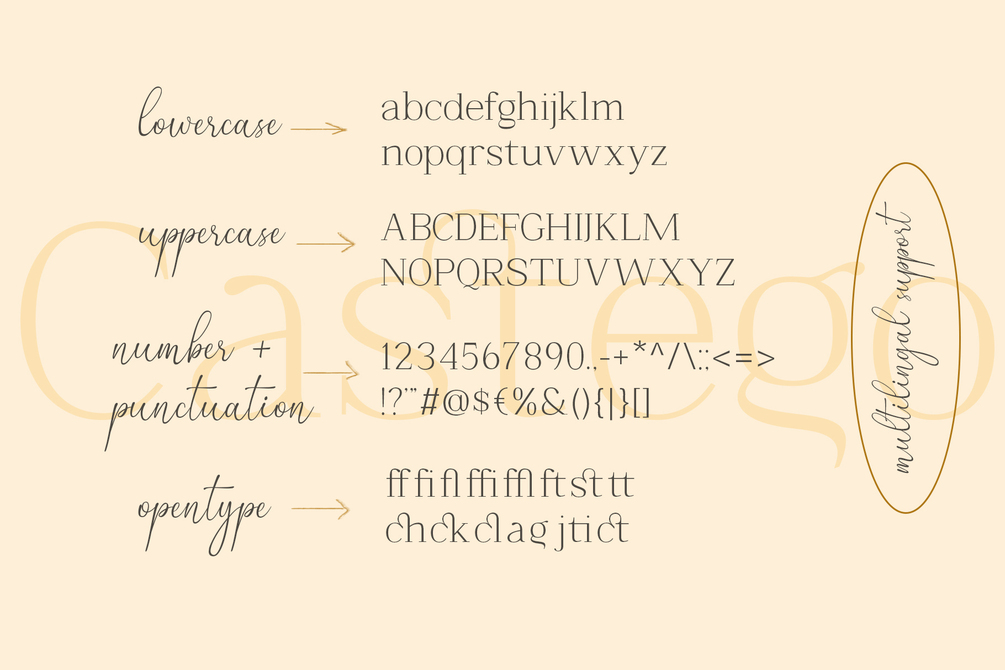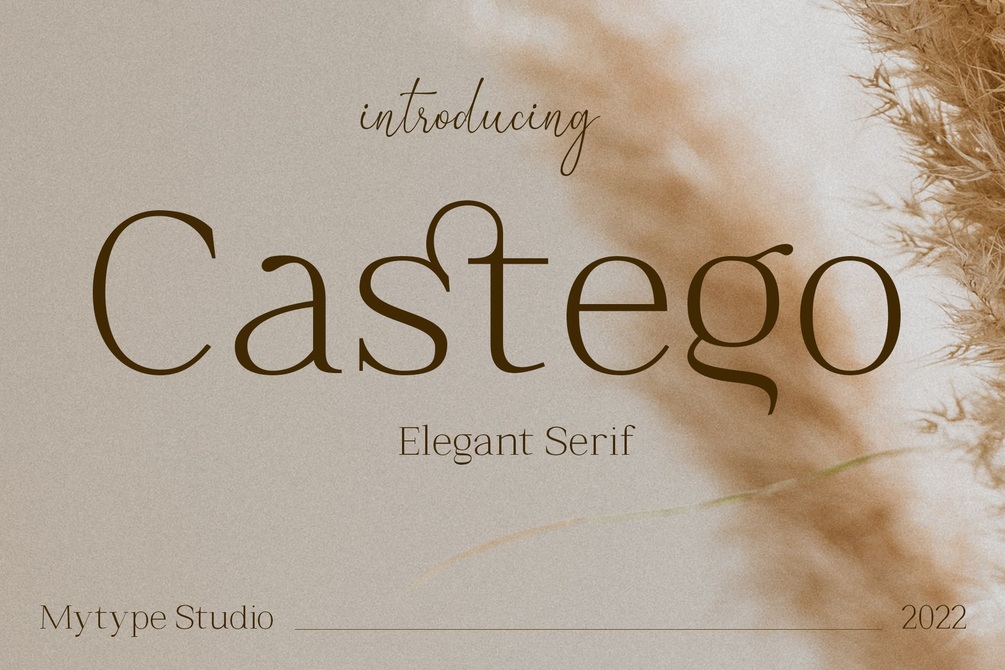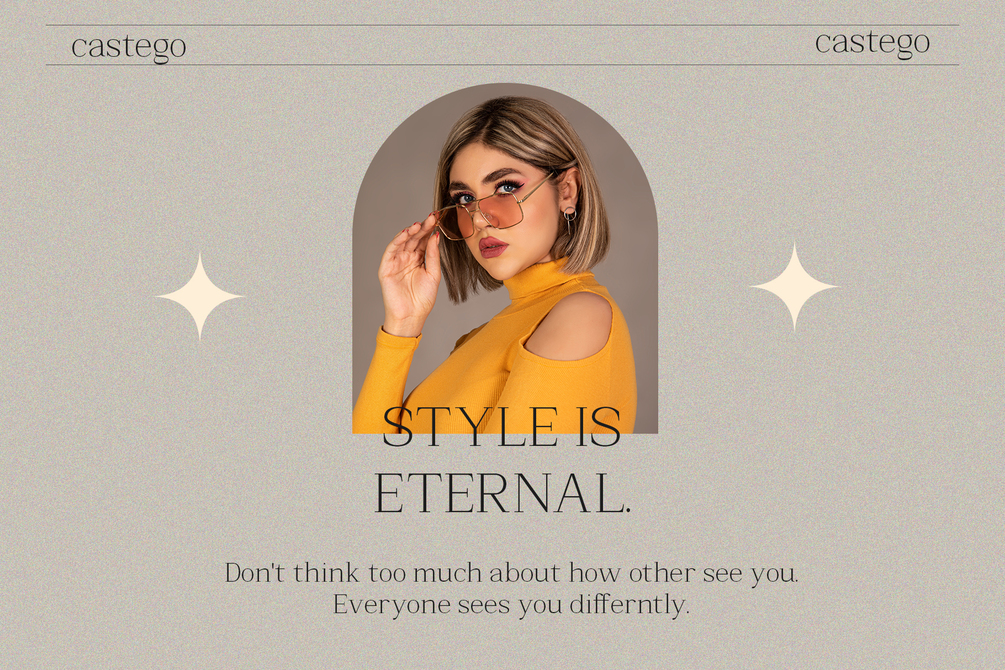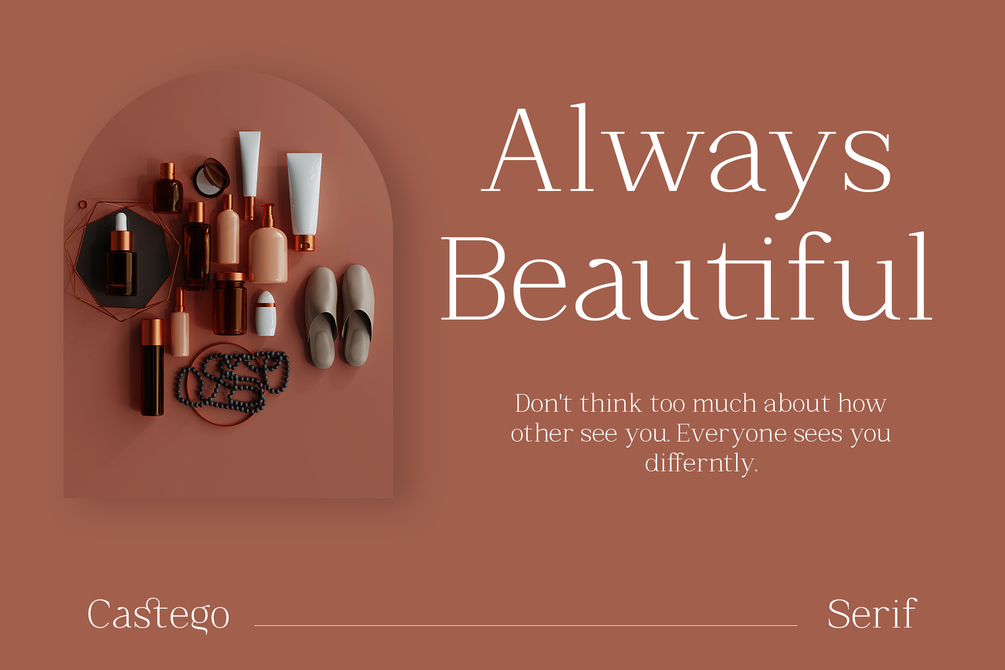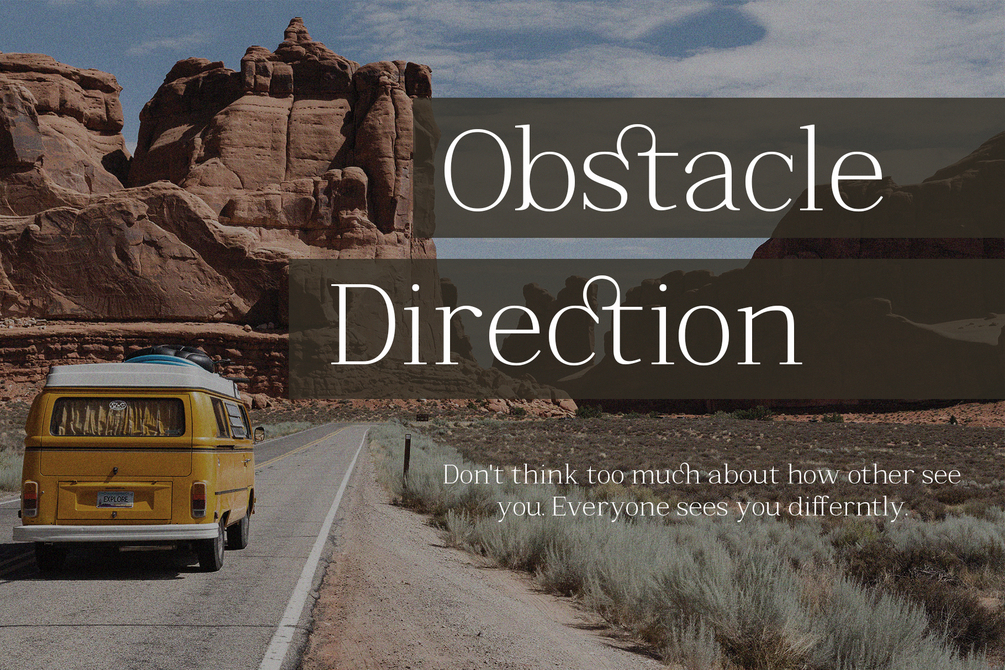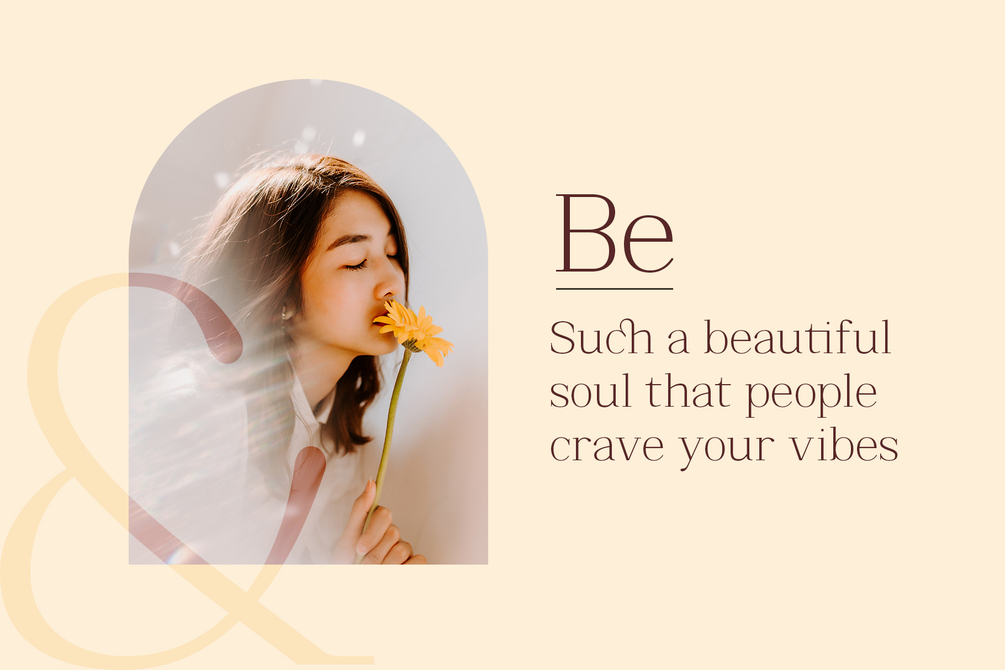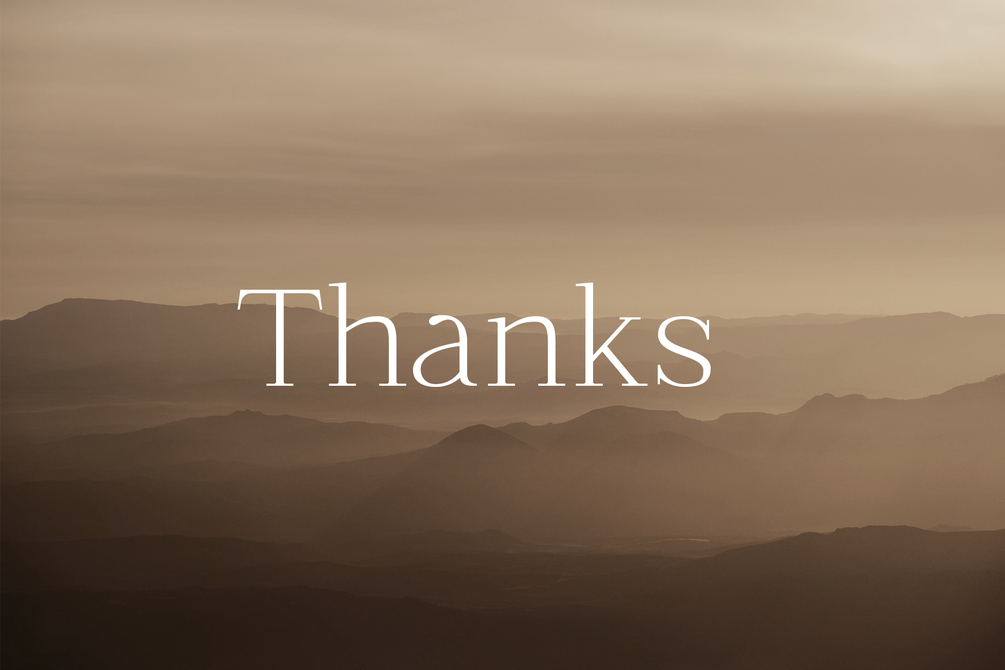
Castego - Elegant Serif
Castego is a modern serif font that embodies elegance and charm in every character. It is perfect for luxury logos, branding, classy editorial designs, women’s magazines, cosmetic brand, promotional designs, the fashion industry, and more.
This gorgeous font includes all lowercase and uppercase characters, numbers, punctuation, an array of standard ligatures and a selection of international characters as well.